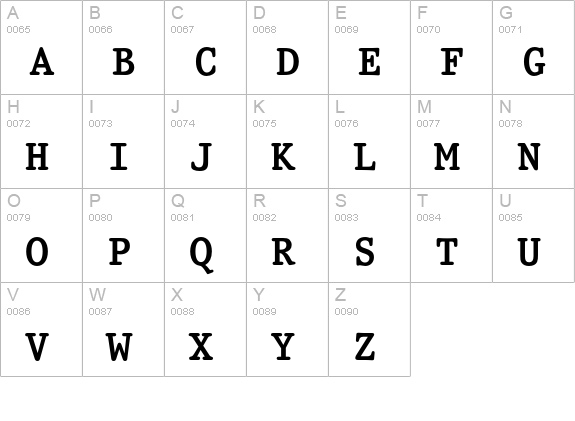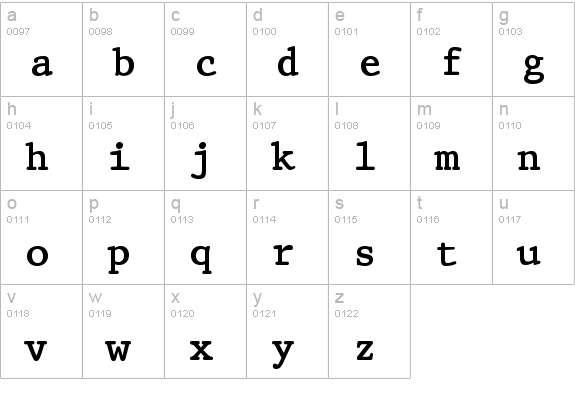
Prestige 12 Pitch Bold is a strong, high-contrast variant in the Prestige typeface family \xE2\x80\x94 well suited to headlines, attention-grabbing titles, and strong calls-to-action.
Introducing Prestige 12 Pitch Bold font, a timeless and sophisticated typeface that exudes elegance and professionalism. With its bold and commanding presence, this font is perfect for making a statement in your designs. The clean lines and strong strokes of Prestige 12 Pitch Bold font make it ideal for headings, titles, and branding materials that demand attention. And the best part? Prestige 12 Pitch Bold font is available for free download at FontsMarket.com. Now you can elevate your designs without breaking the bank. Don't miss out on this opportunity to add a touch of prestige to your projects with this stunning typeface. Download Prestige 12 Pitch Bold font today and take your designs to the next level!